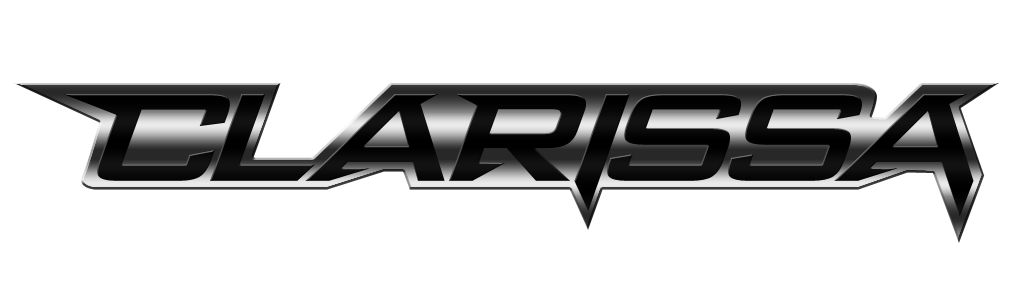
for hehe :3PS. I don't have Tekken font, please don't ask me Tekken font, I drew this manually with photoshop.
i don't wanna make a habit of this and accept requests XD my gallery is already full of tekken fonts lol